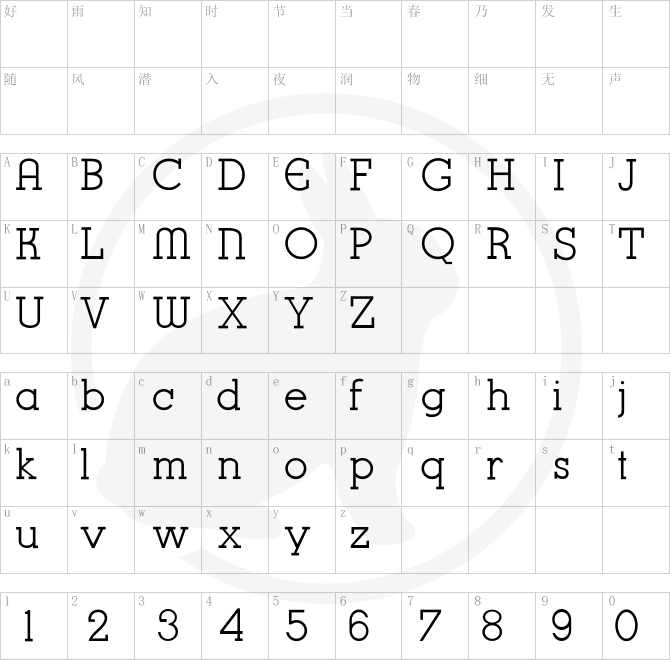
- Font Name:K22 Karnak Deco
K22-Karnak-Deco.ttf is a very beautiful artistic font, K22-Karnak-Deco.ttf is widely used in the design and printing of various books and pictures,K22-Karnak-Deco.ttf has a strong visual impact,K22-Karnak-Deco.ttf is a commonly used font in newspapers, magazines and books, and is used in posters, e-commerce Poster design, store design, logo design, font design and other fields.K22-Karnak-Deco.